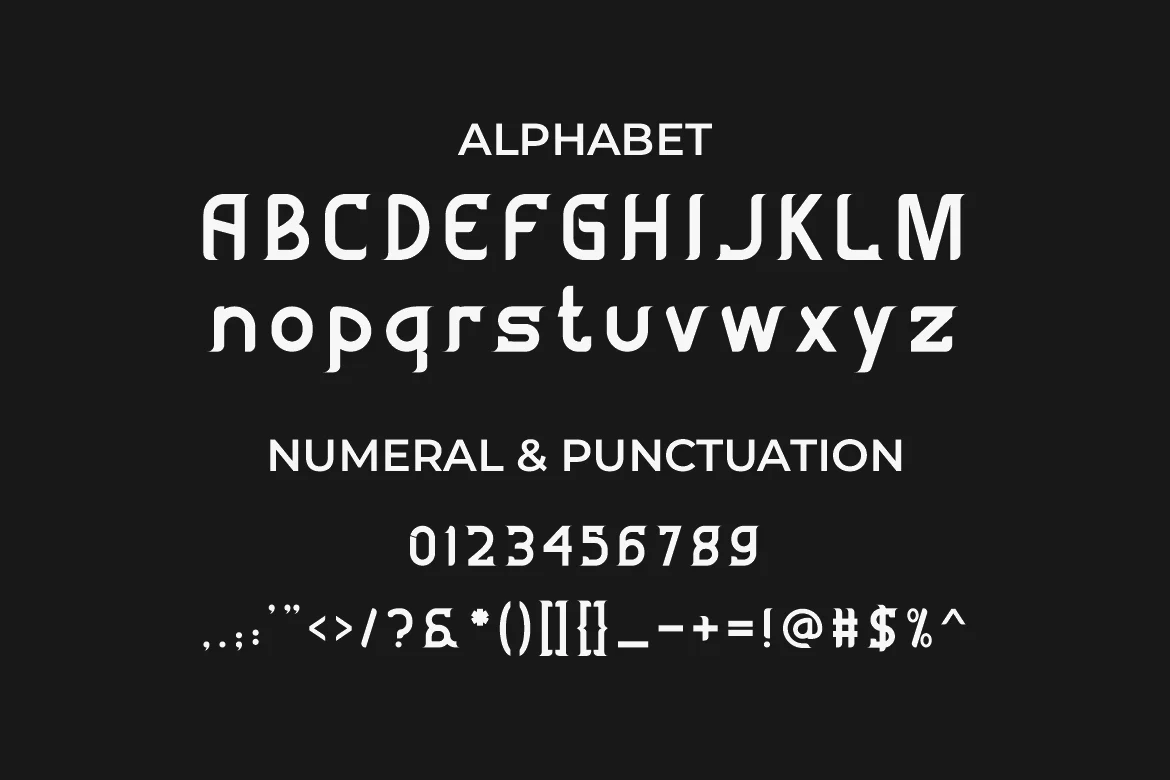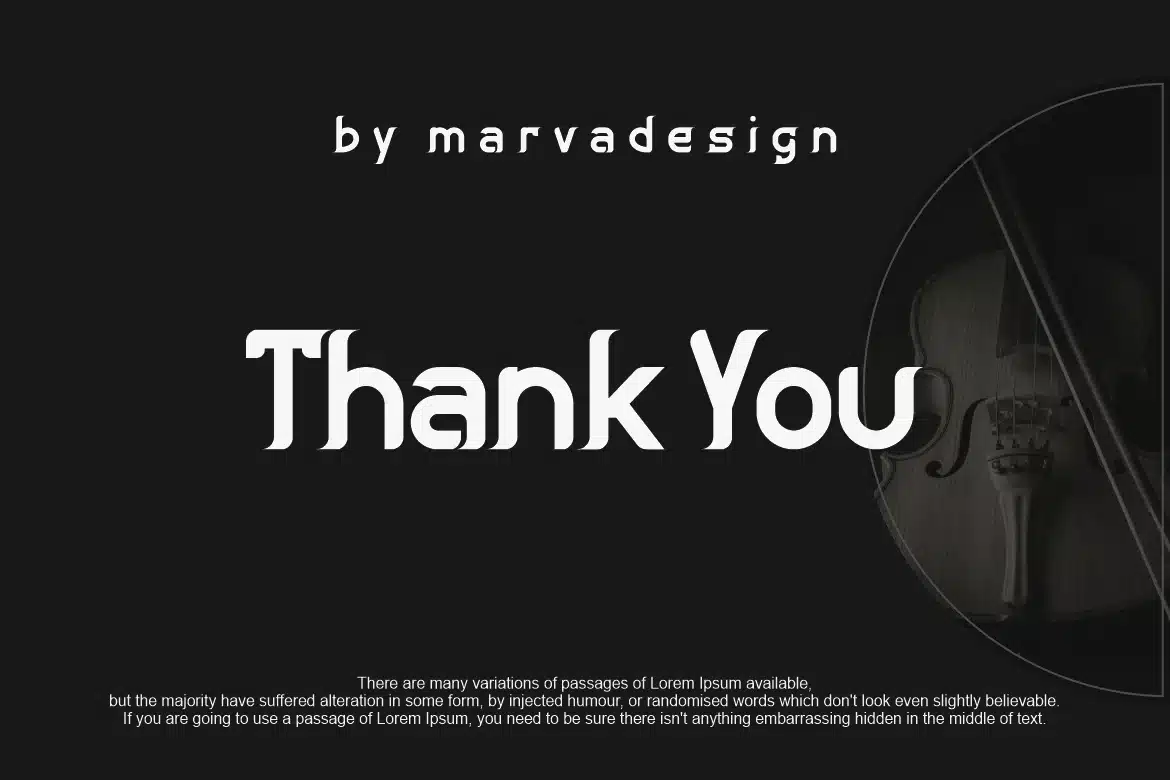
ABIMOCHI Font
Introducing our new product ABIMOCHI Font - Modern Font
ABIMOCHI Font** - Modern Font is a bold and authentic display font. The font is suitable for any branding project like logo, t-shirt printing, Product and many more. outstanding in a wide range of contexts.